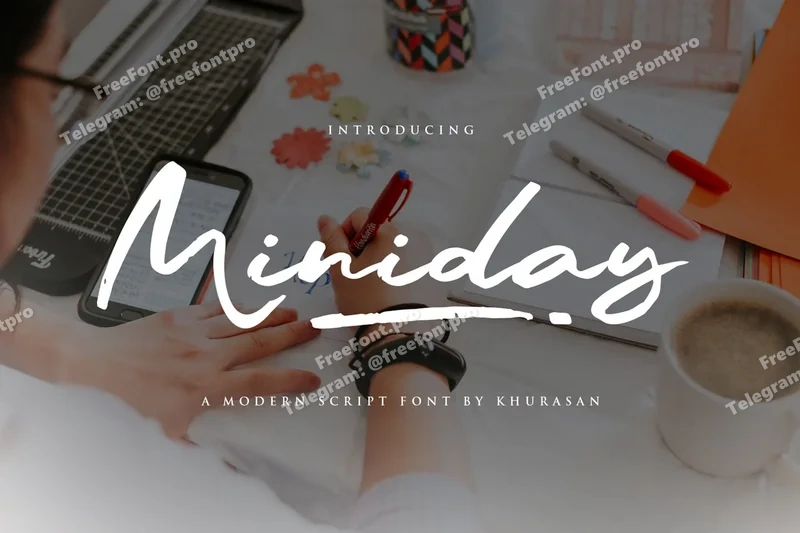
Miniday
Miniday is a modern and cute display font perfect for posters, logos, magazines, book covers, banners, and many more! Get this amazing font, and use it to create lovely designs. It can easily be matched to an incredibly large set of projects, so add it to your creative ideas and notice how it makes them stand out!
Miniday font suitable for logo, branding, greeting card, poster and any design that you create.